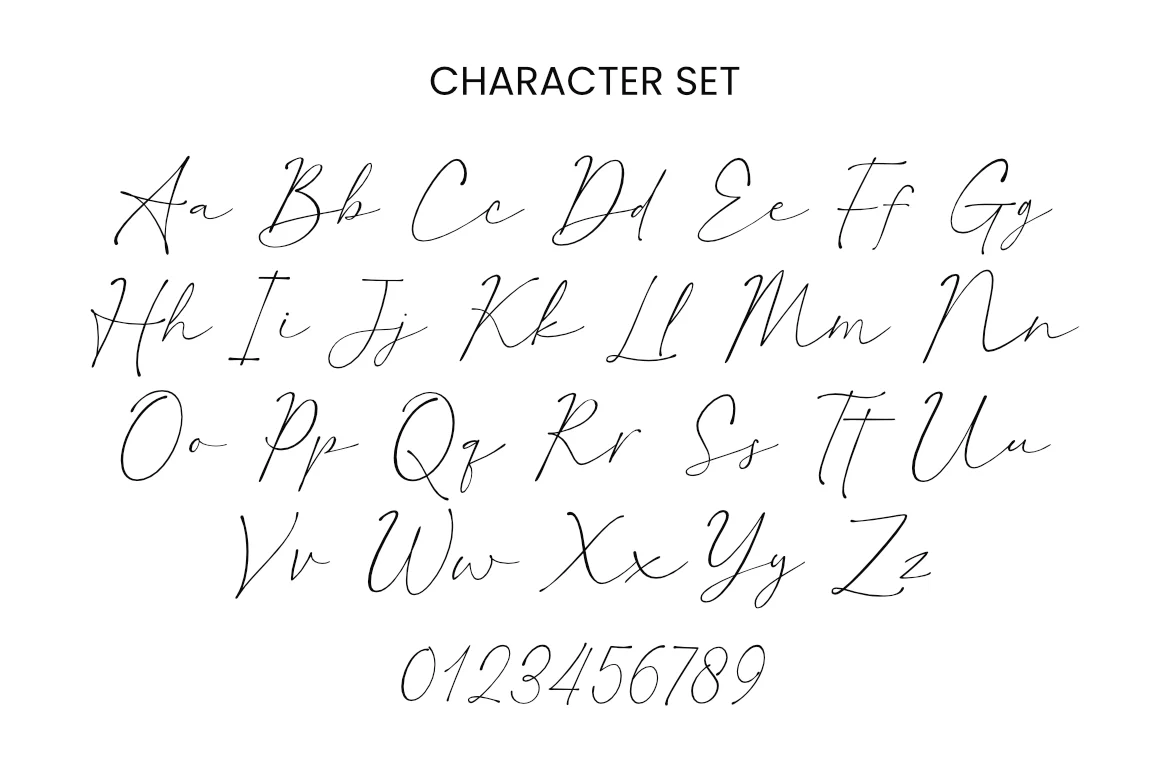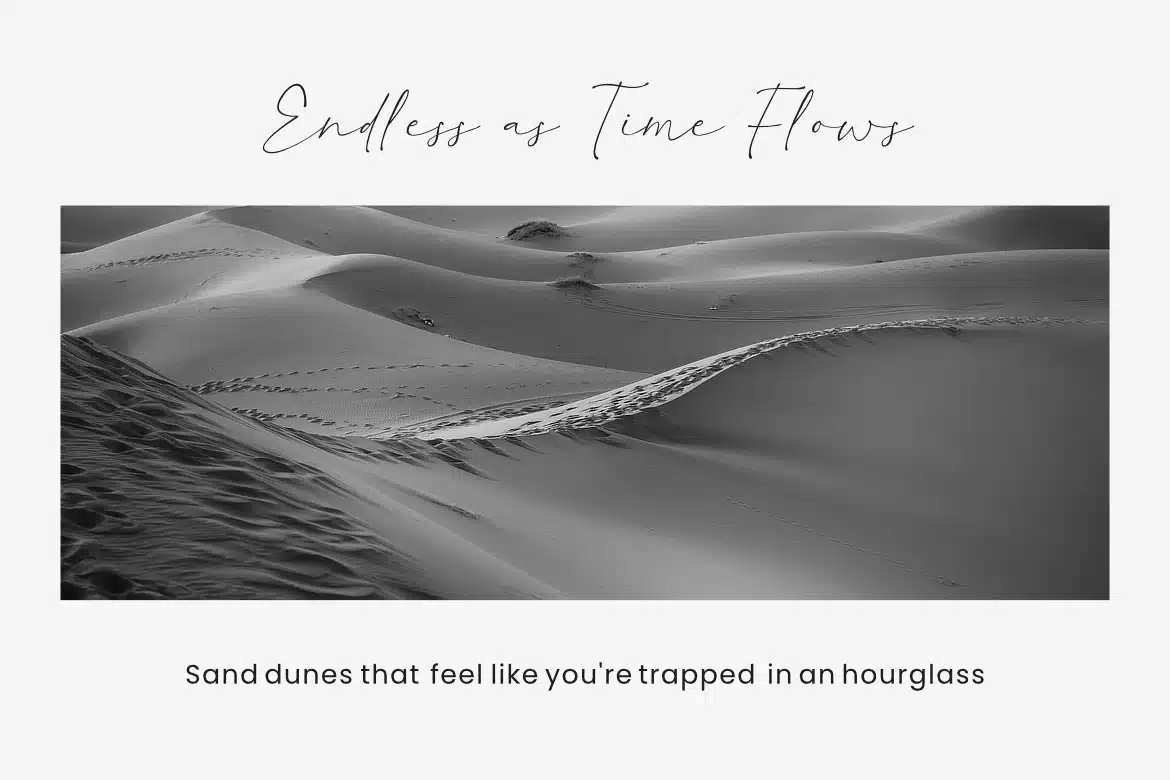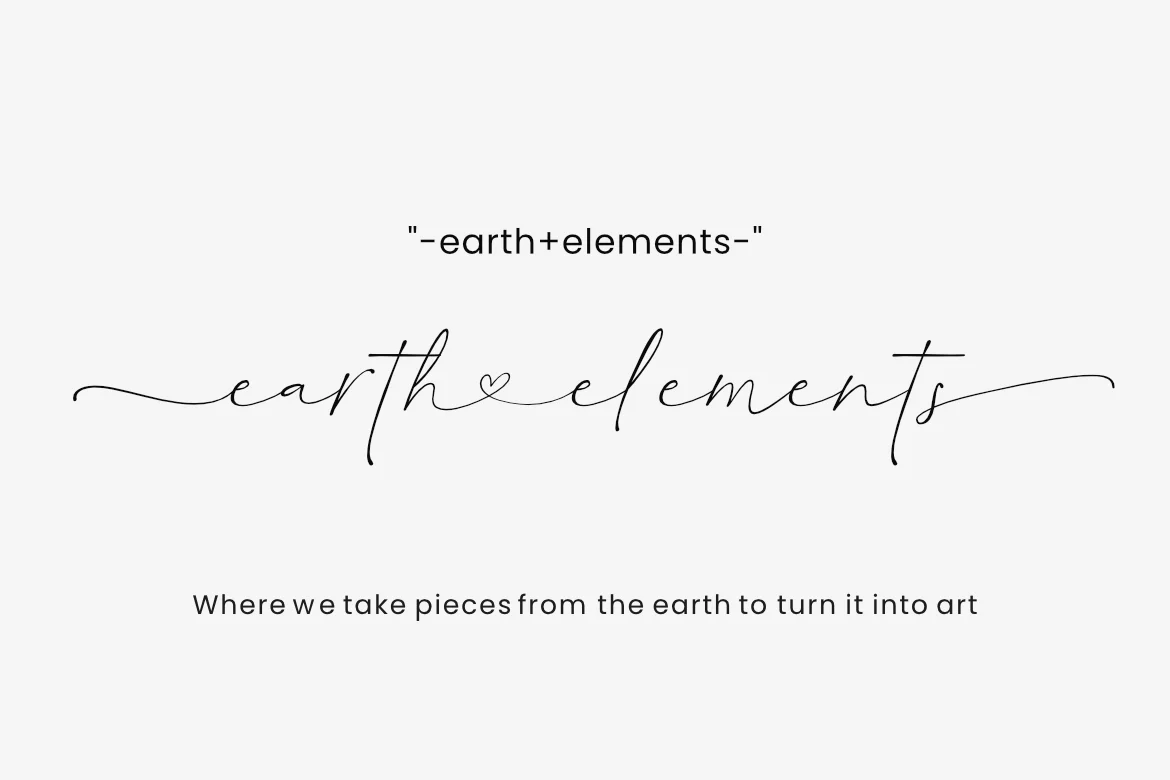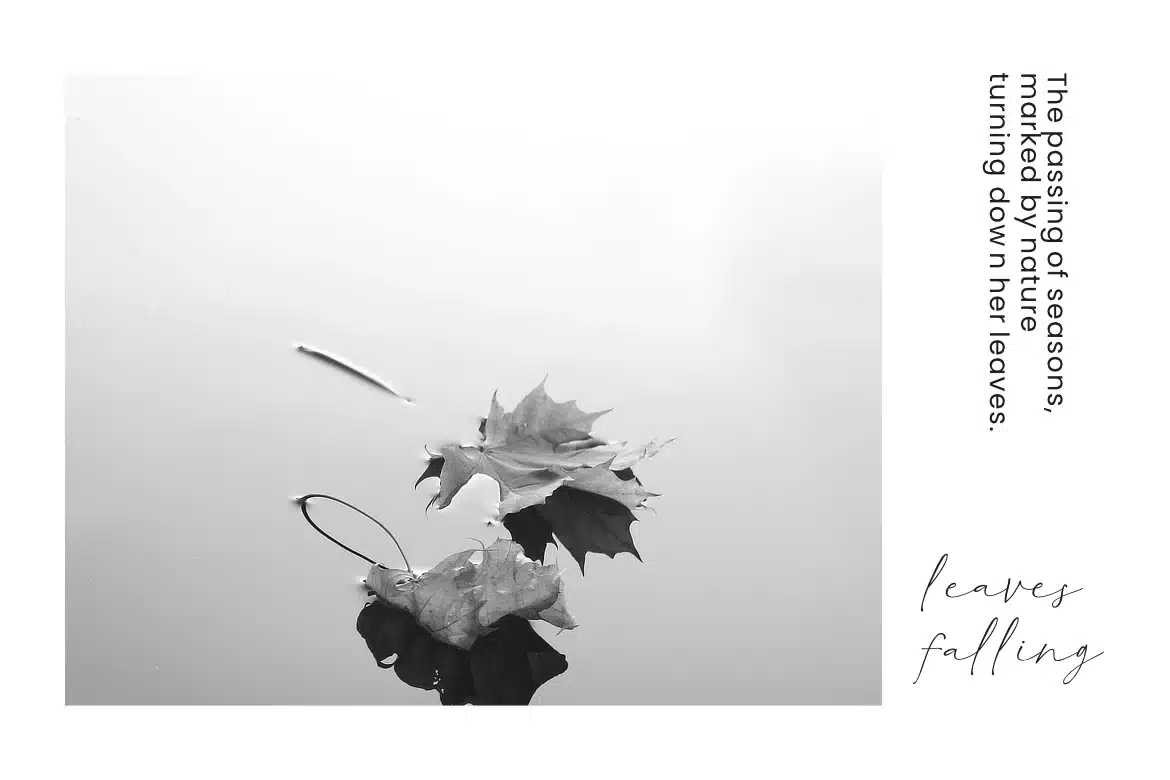
Raffishly Font
Raffishly is a modern and luxurious handwritten font that comes with handwritten swashes. Raffishly has a natural expression, with a casual and elegant impression.
- Uppercase and Lowercase
- Punctuation & Number
- Multilingual Support ÀÁÂÃÄÅÆÇÐĐÈÉÊËÌÍÎÏŁÑÒÓÔÕÖØŒŠÙÚÛÜŸÝŽàáâãäåæçđèéêëìíîïłñòóôõöøœšùúûüýÿž